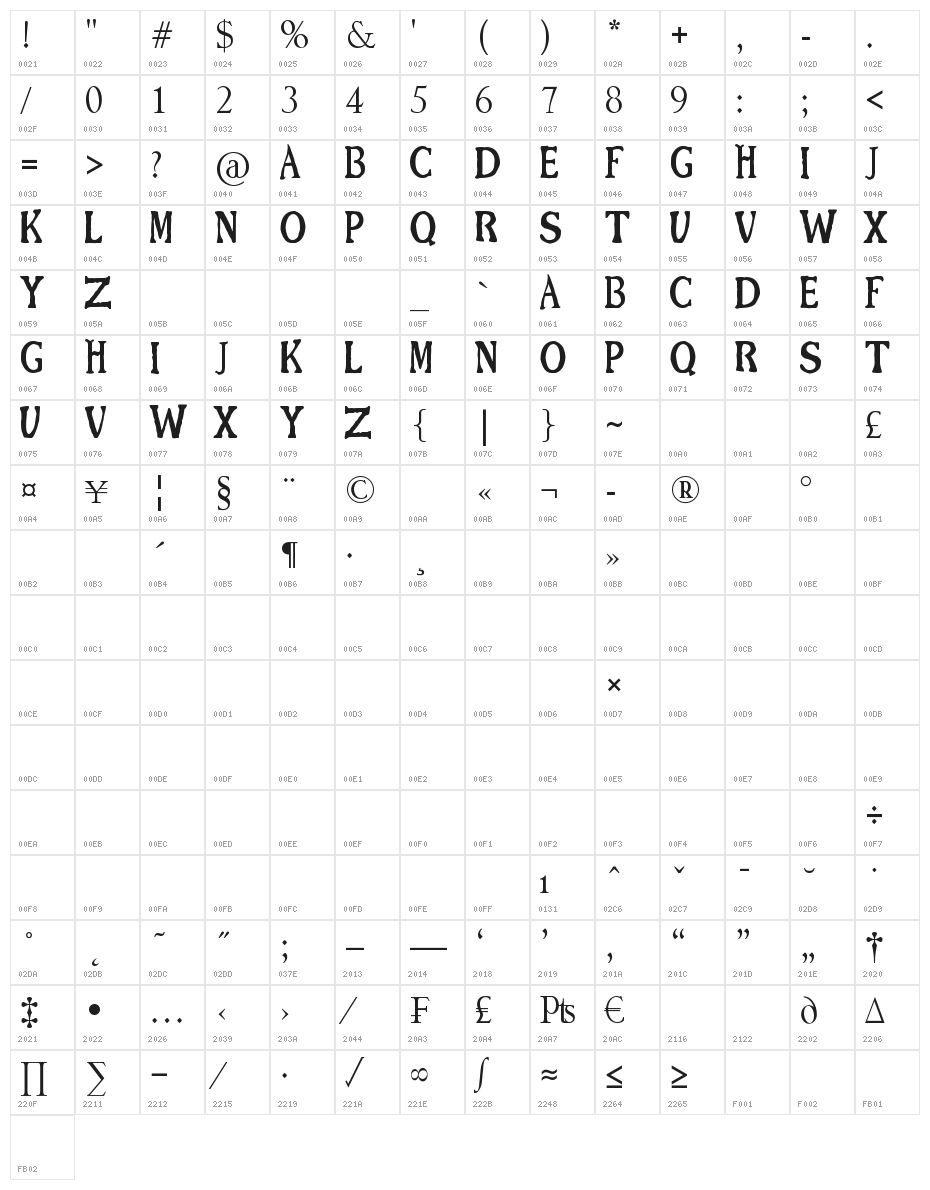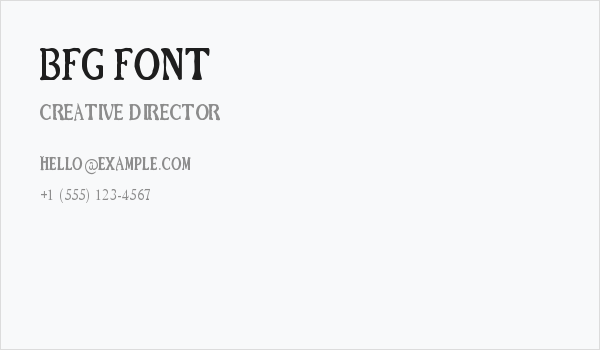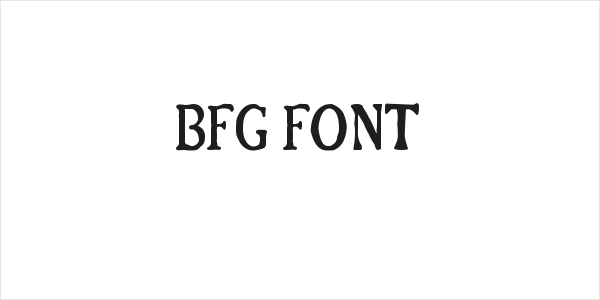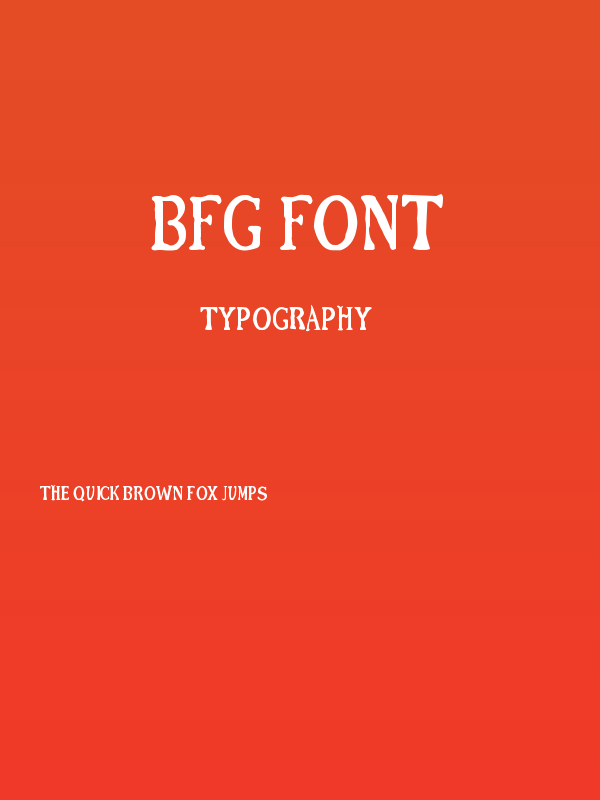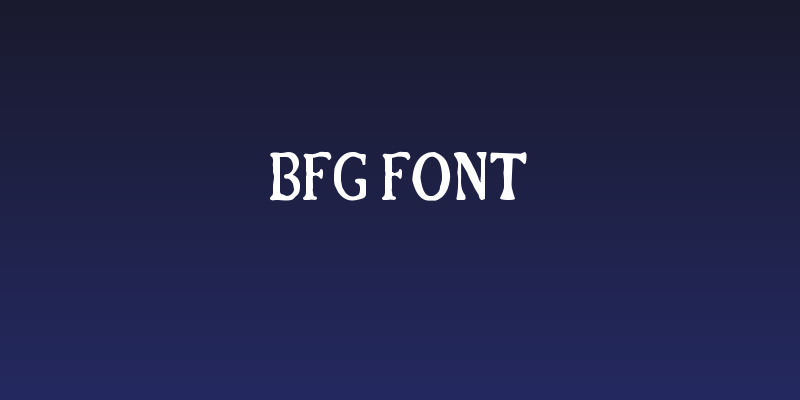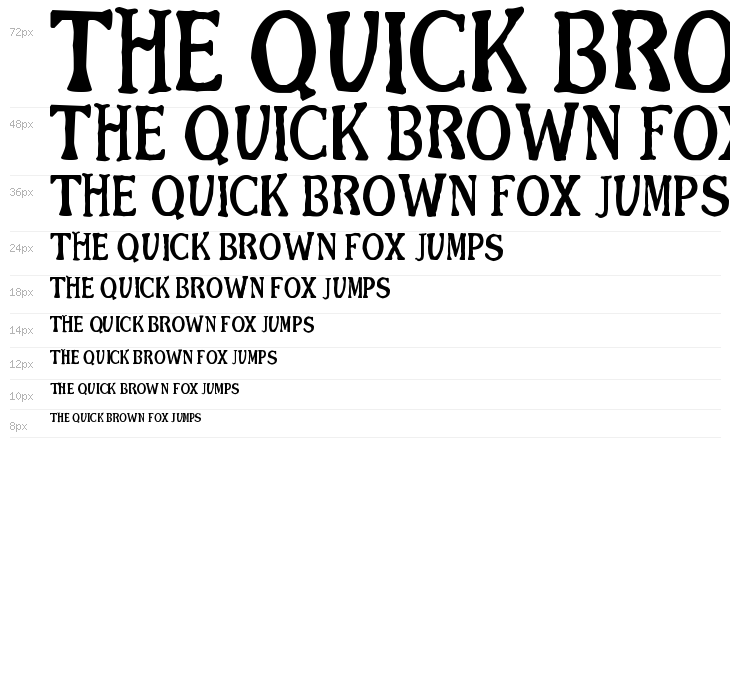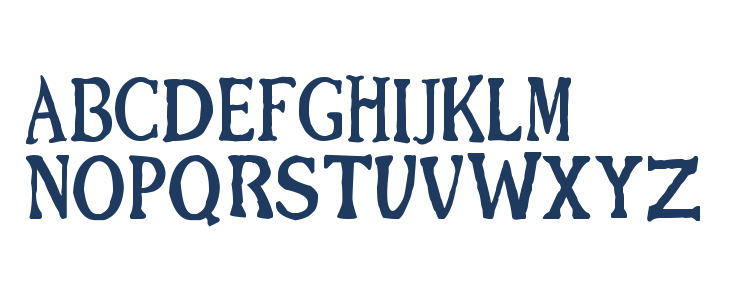
BFG Font Font
BFG Font Description
This font features a bold and dynamic design with a strong presence. The characters have a slightly rough and textured appearance, giving them a handcrafted feel. The uppercase letters are particularly striking, with a consistent height and a slight variation in width that adds to the font's unique character. The numerals are well-proportioned and maintain the same textured style, ensuring consistency across all characters. The special characters are distinct and maintain the overall aesthetic, making this font versatile for various uses.